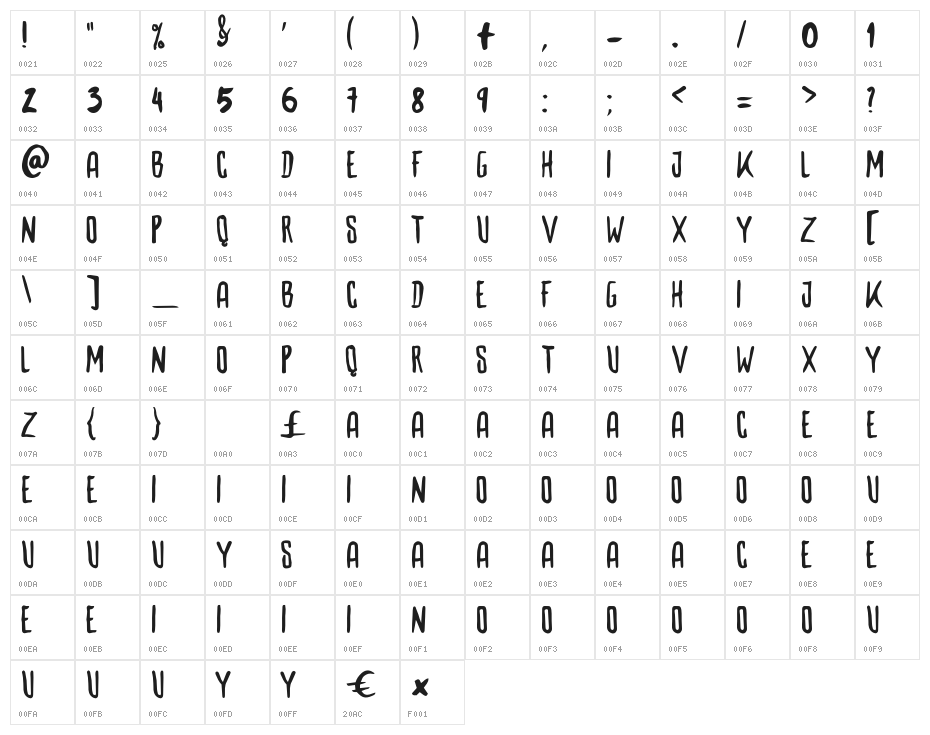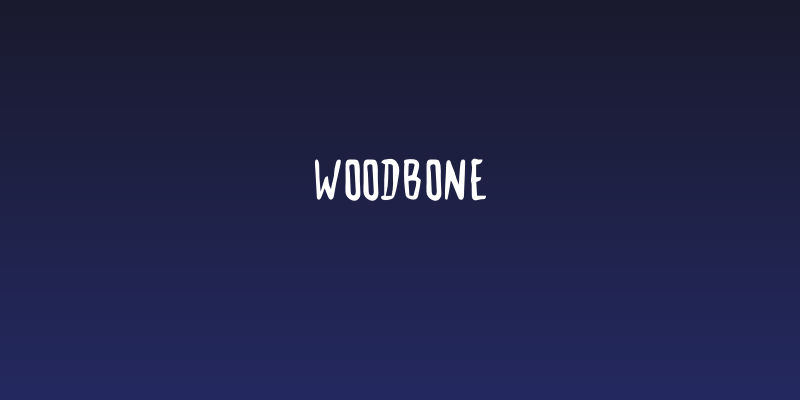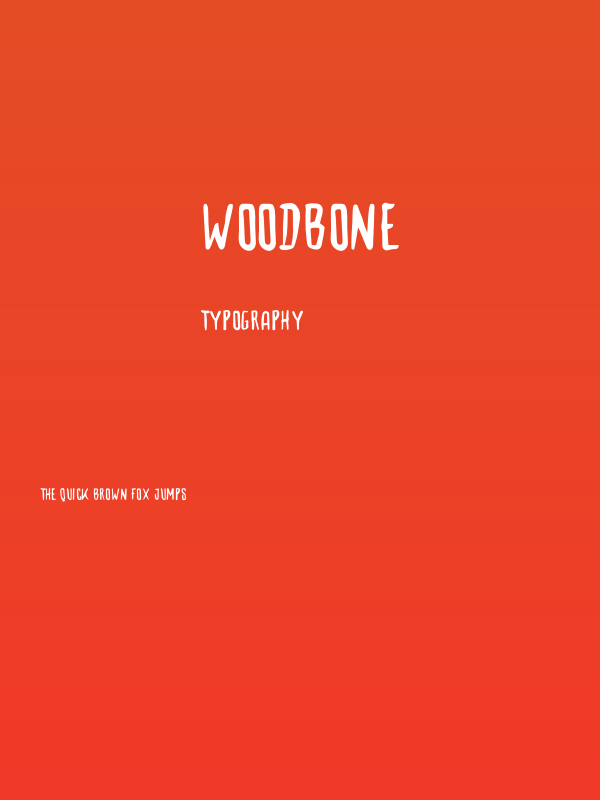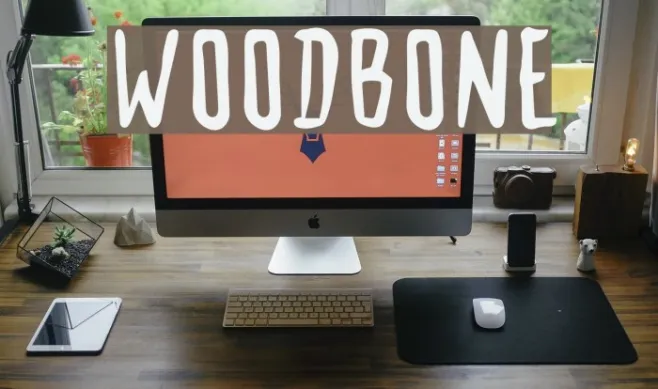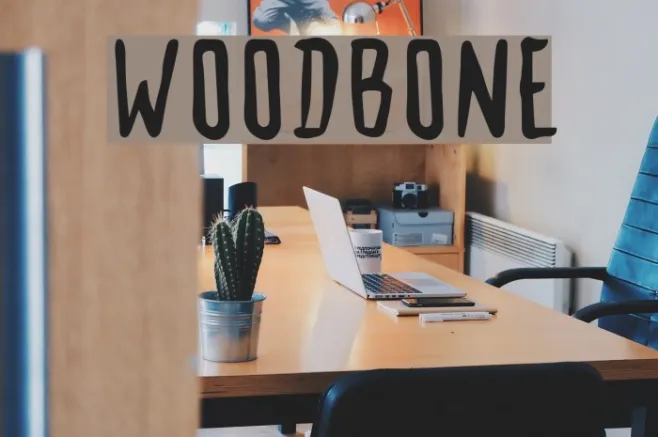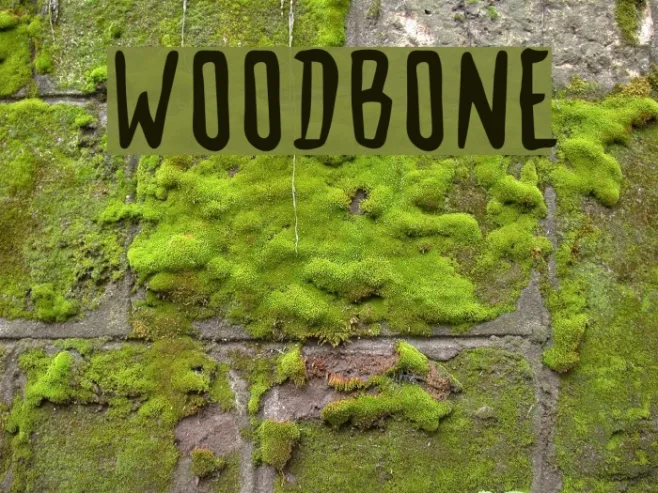
Woodbone Font
Woodbone Description
This font features a playful and organic style, characterized by its irregular, hand-drawn appearance. The letters have a slightly uneven baseline and varying stroke widths, giving them a lively and dynamic feel. The uppercase and lowercase letters maintain a consistent style, with rounded edges and a slightly condensed form. The numerals and special characters follow the same whimsical design, making them suitable for creative and informal applications. The font's unique personality makes it ideal for projects that require a touch of individuality and charm.